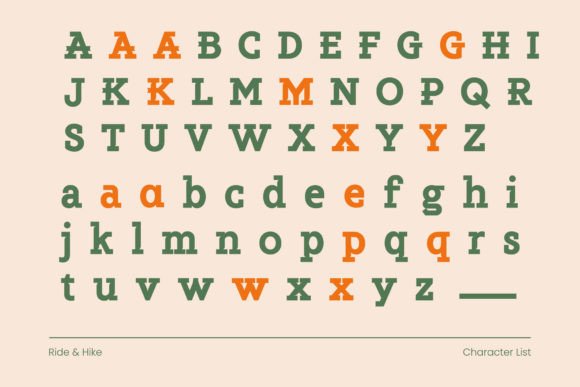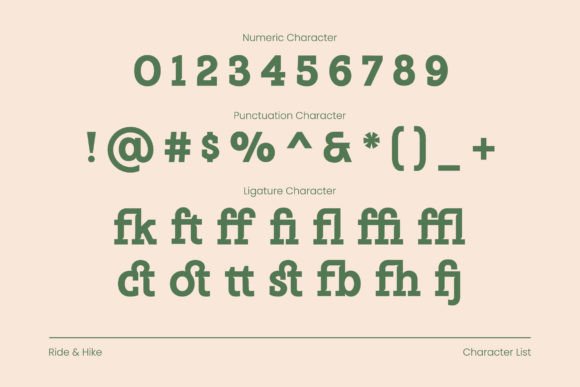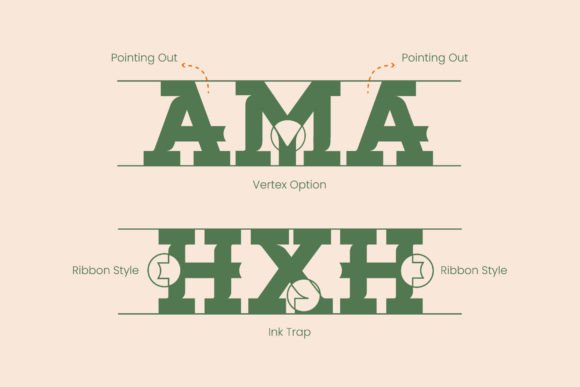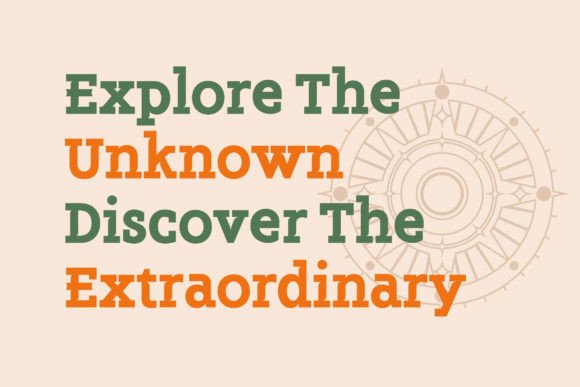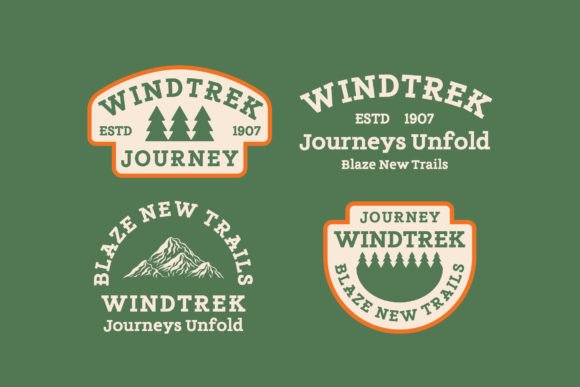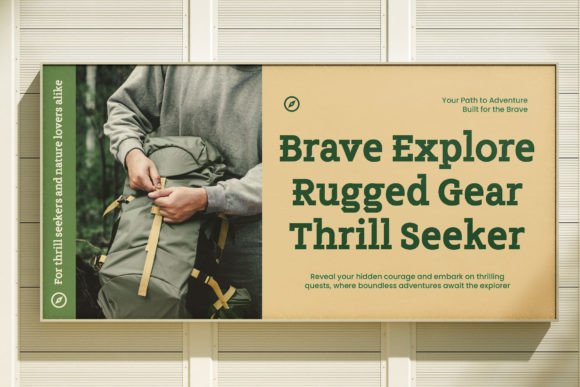
Introduction to Ride & Hike Font
As designers, we’ve all been there – staring at a blank canvas, trying to conjure up the perfect combination of words and images to bring a creative project to life. It’s that moment when the right font can make all the difference, elevating our design from mere mortal to something truly remarkable. And that’s where Ride & Hike Font comes in – a game-changing, high-quality font that’s about to revolutionize the way you approach your next design project.
With its robust and blocky design elements, Ride & Hike Font is the perfect choice for designers looking to add a commanding and sturdy presence to their work. Whether you’re working on a branding project, creating a poster for an outdoor adventure, or designing a book cover, this versatile font is sure to impress. And the best part? It’s a free download, making it an invaluable resource for any designer looking to take their creative projects to the next level.
Key Features of Ride & Hike Font
- High-quality design: Ride & Hike Font is a professional and stylish font perfect for any creative project.
- Unique characteristics: Ride & Hike Font features a unique blend of modern and outdoor-inspired elements, making it perfect for outdoor and adventure-themed designs.
Honest Review: Ride & Hike Font
I recently stumbled upon the Ride & Hike Font and was excited to give it a try. As a designer, I’m always on the lookout for high-quality fonts that can elevate my creative projects.
Here’s what I liked about the Ride & Hike Font: ✨ It’s free to download, which is a huge plus for designers on a budget. The font is also available for commercial use, making it a great resource for personal and professional projects. The transparent background option allows for easy customization and layering in design applications. The font’s clean and modern design makes it perfect for outdoor-themed projects, such as travel websites or adventure gear branding.
However, I did encounter a few limitations: ⚠️ The font’s character set is limited, which may not be suitable for projects that require a wide range of characters. Additionally, the font’s bold weight can sometimes appear too heavy or overwhelming in certain design contexts.
Overall, I’m impressed with the Ride & Hike Font’s potential, but I’d recommend it for projects that require a clean, modern aesthetic with a transparent background. With a bit more development, I think this font could become a go-to resource for designers.
The Ride & Hike Font is ideal for:
Outdoor-themed designs.
Travel brochures and posters.
Adventure-related creative projects.